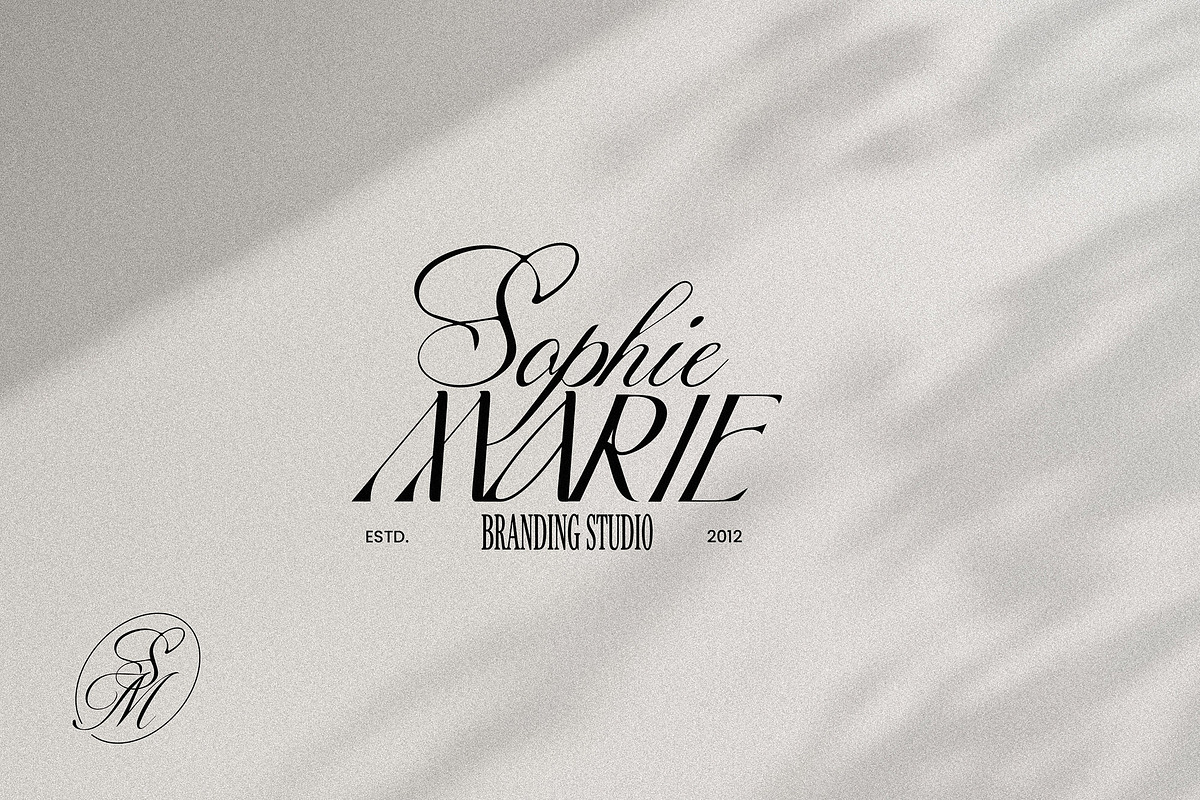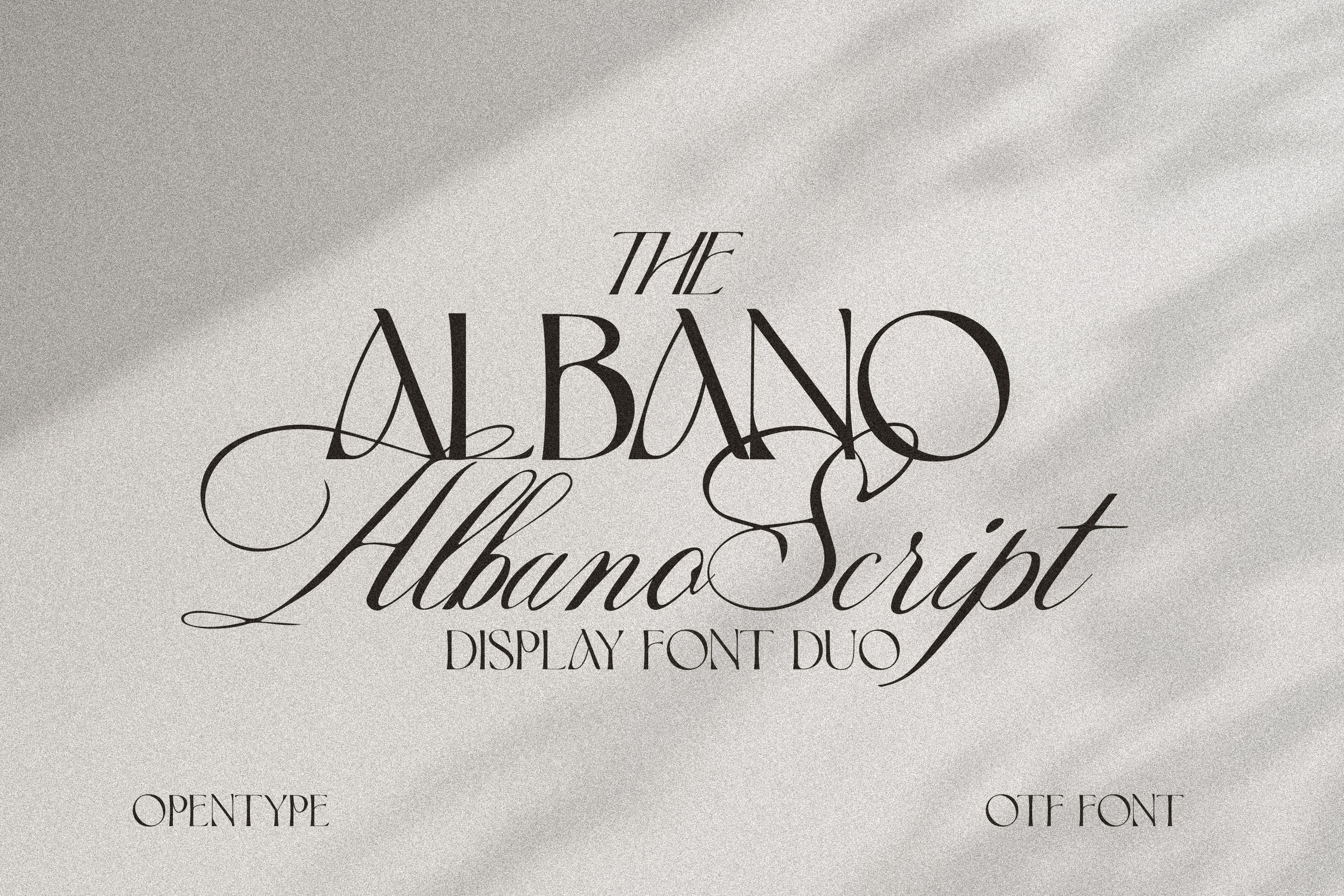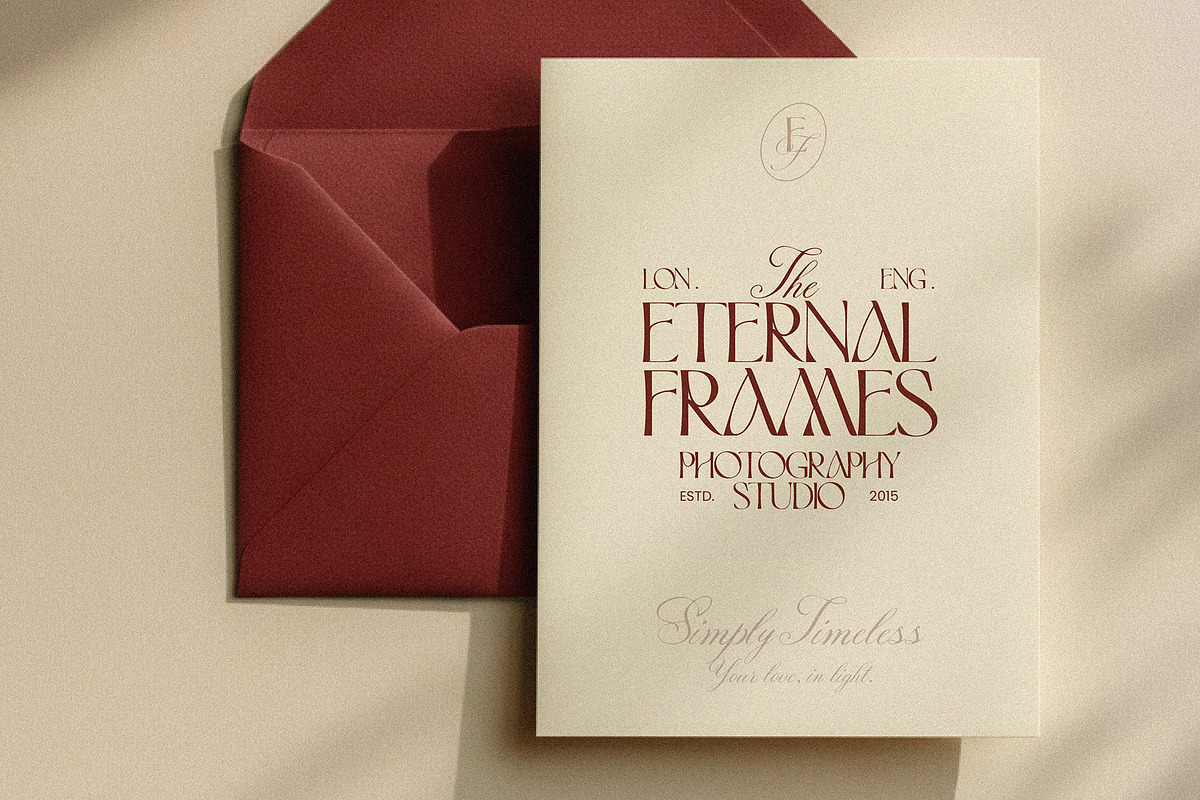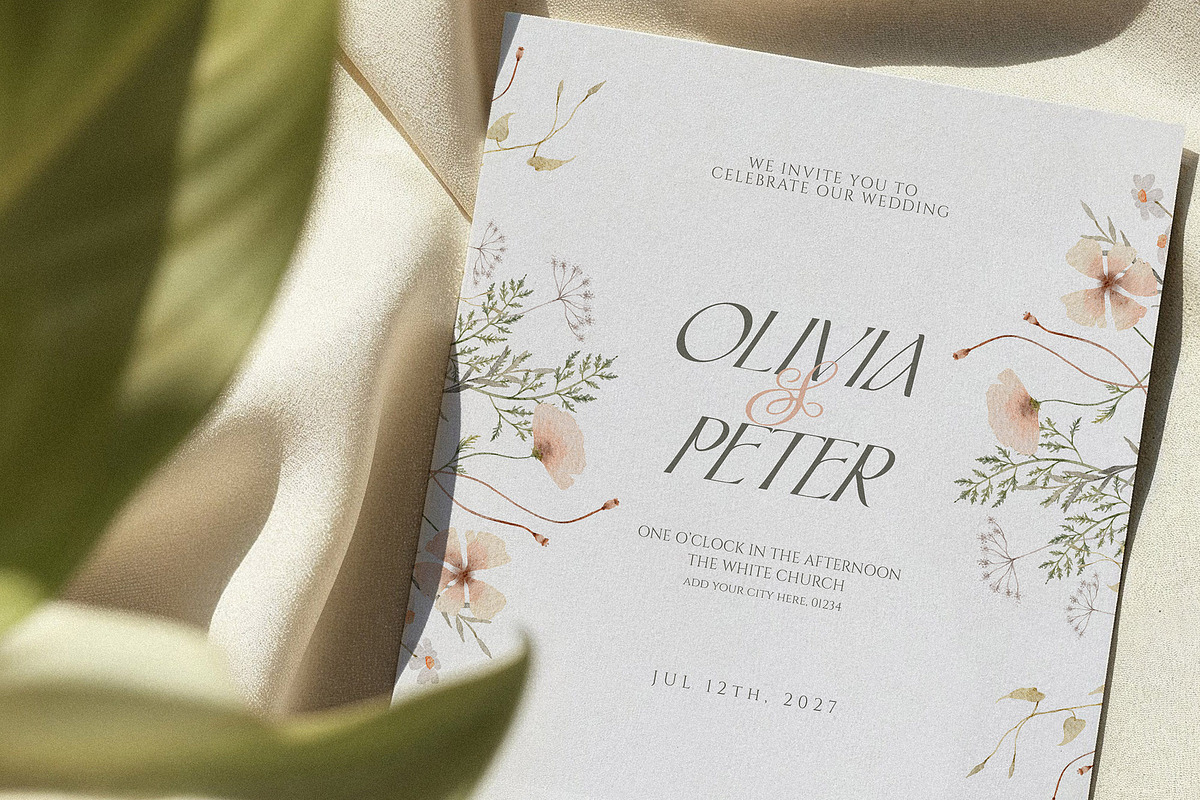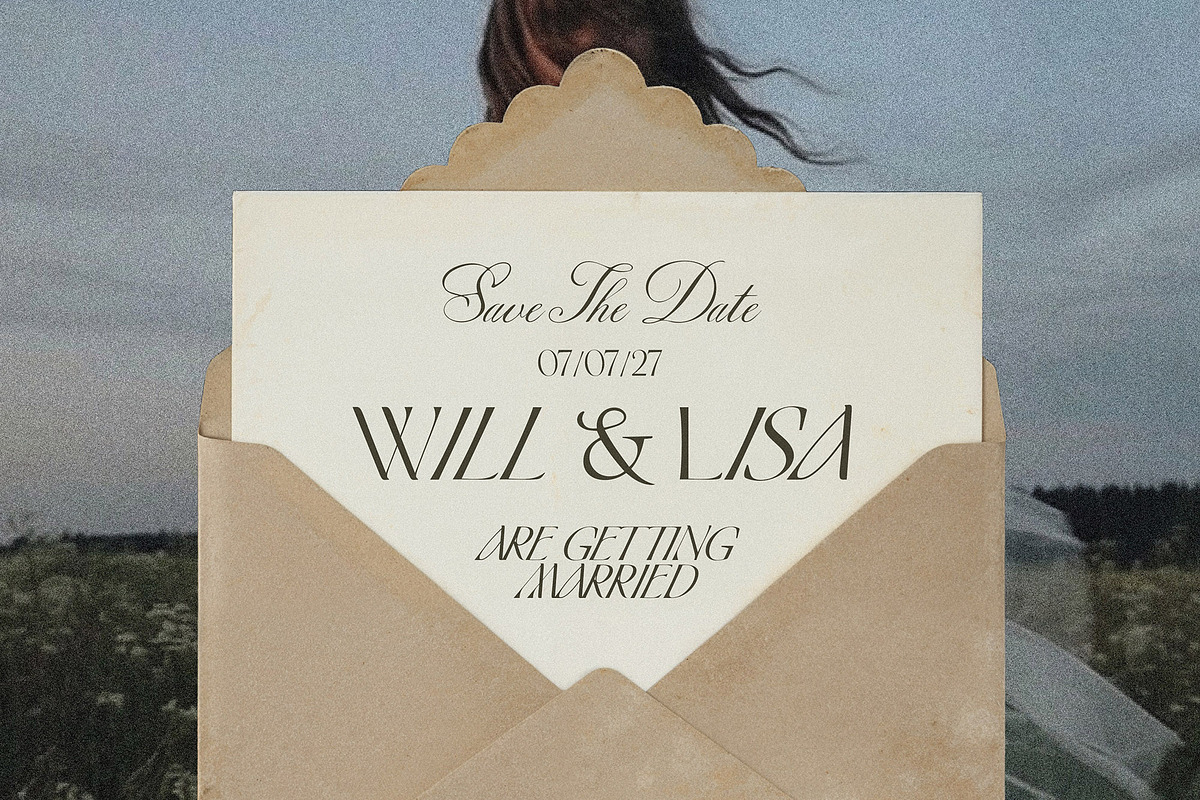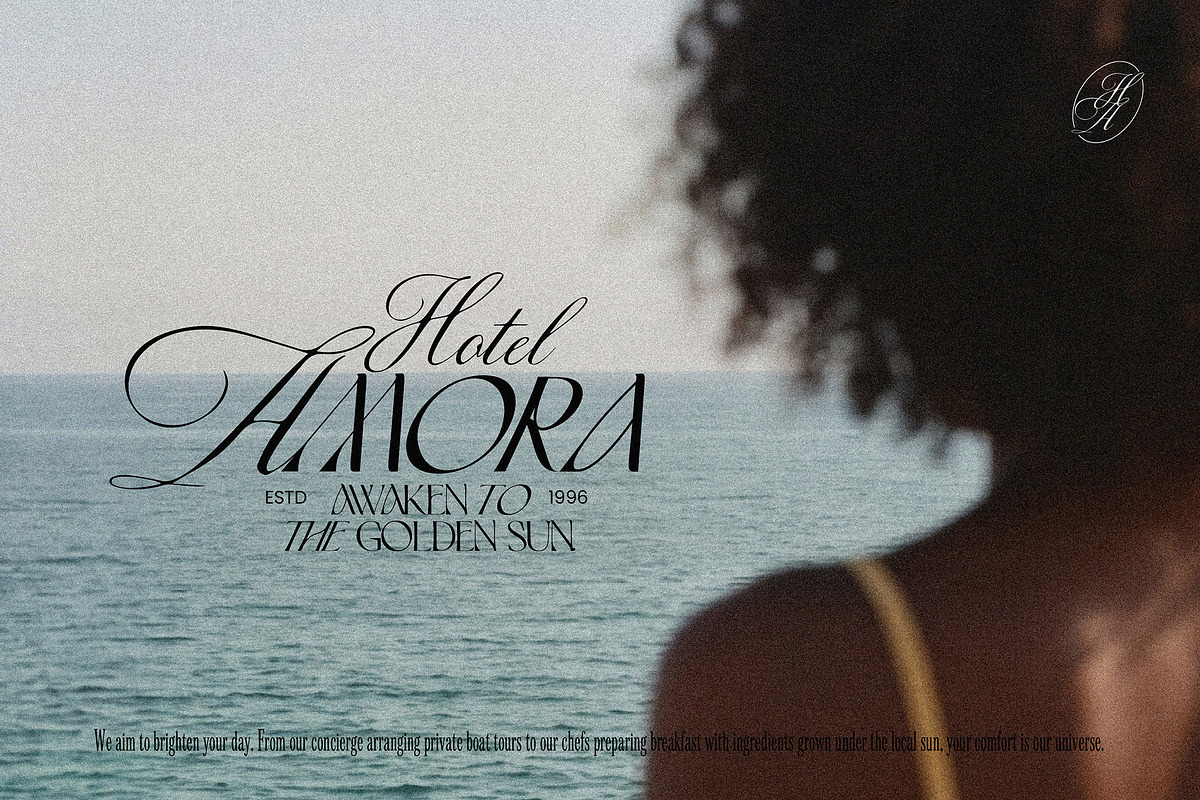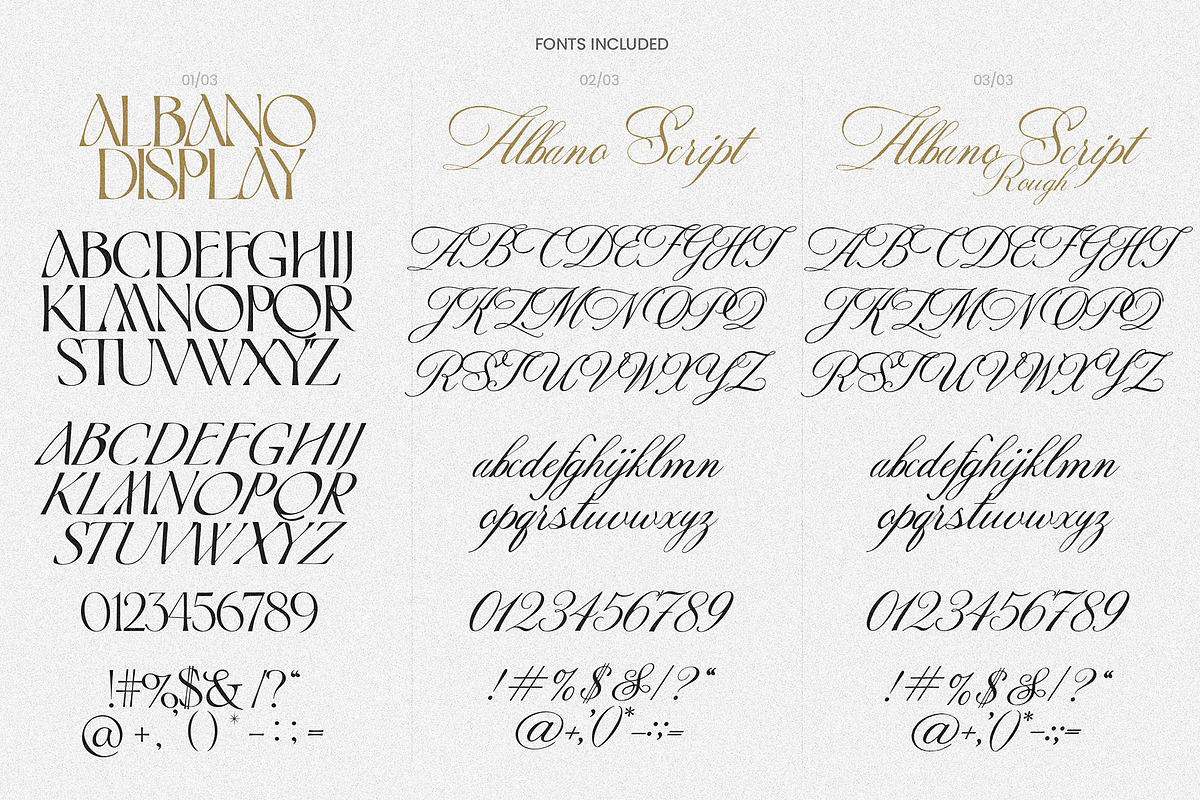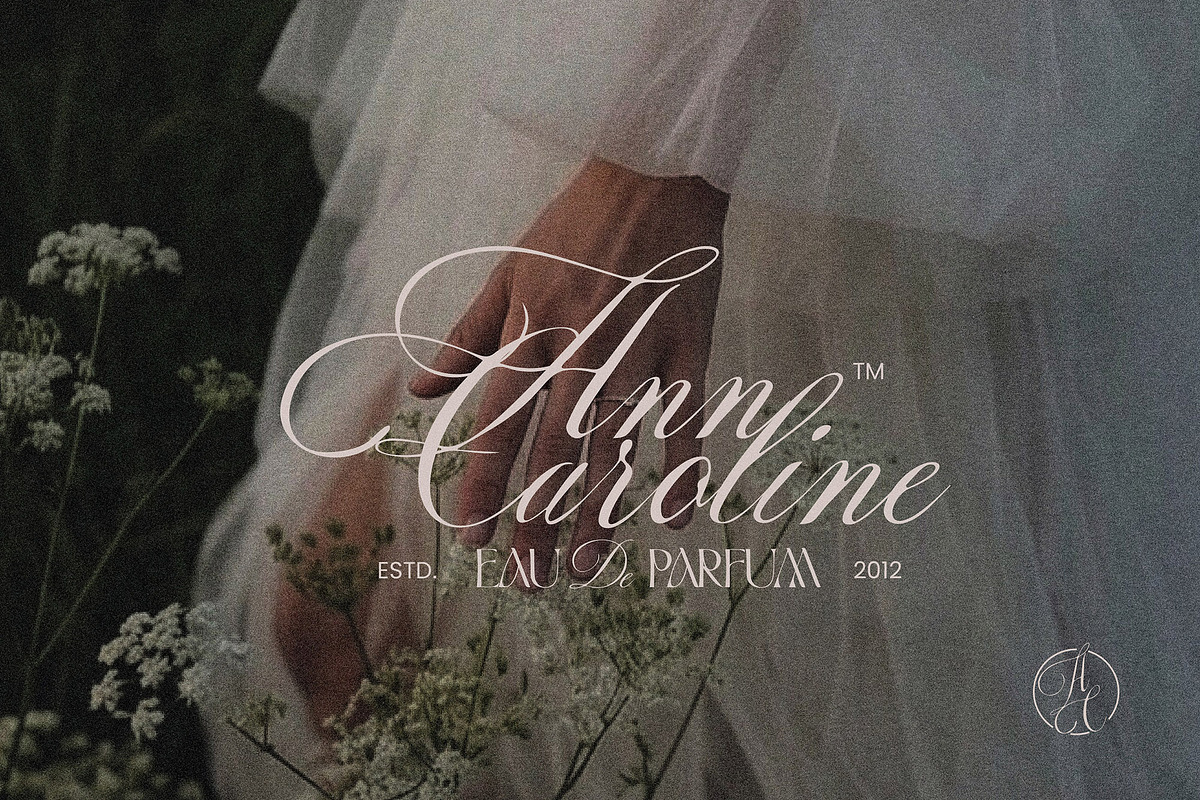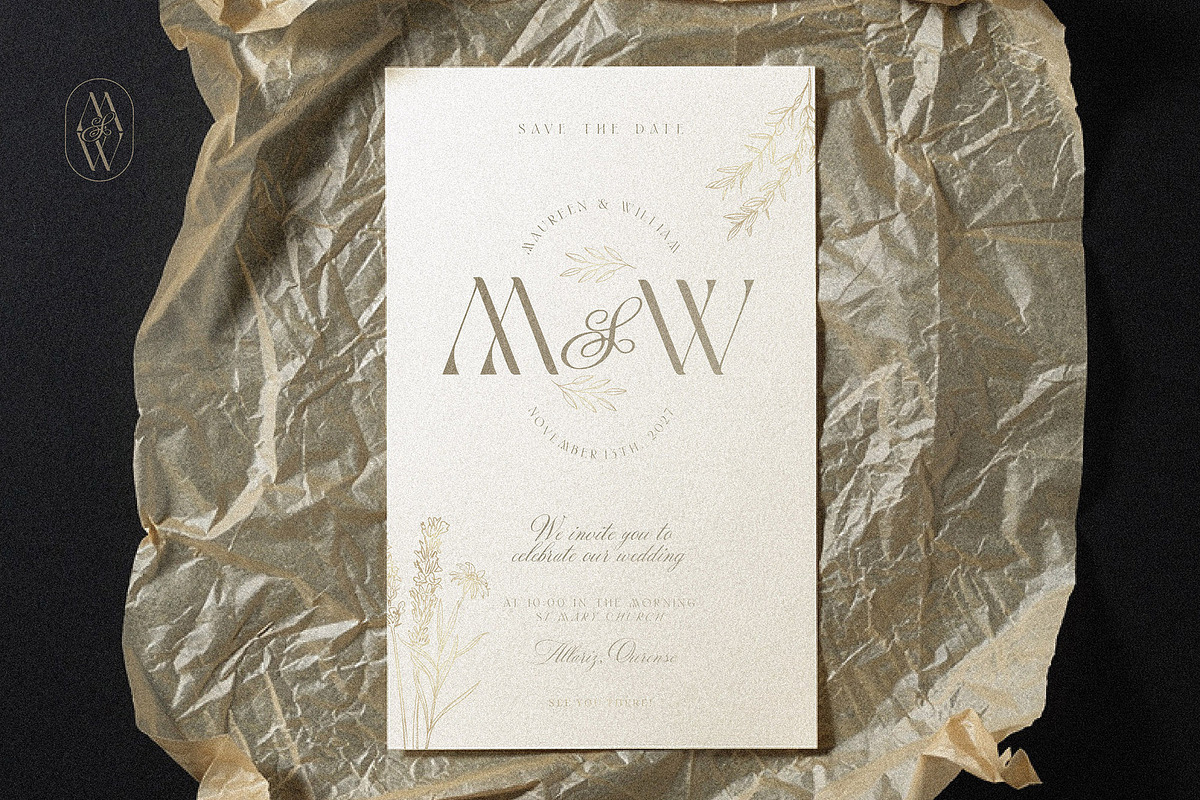
Albano - Luxury Branding Font Duo
Albano is a sophisticated pairing of a high-contrast serif and a flowing, romantic script. Designed to work in perfect harmony, this duo brings a touch of timeless luxury and modern elegance to any project.
The Albano Serif is a display font featuring sharp, high-contrast strokes and unique, decorative shapes that command attention. It feels both vintage and fiercely modern, perfect for headlines and logos that need to stand out.
The Albano Script is its perfect companion—a graceful, hand-written calligraphy style with sweeping swashes and delicate curves. It adds a layer of softness and personalization, making the pair ideal for high-end branding.
Whether you are designing a luxury logo, a wedding suite, or an editorial magazine spread, The Albano Font Duo provides the versatility and class you need to make a lasting impression.
This Font Is Perfect For:
- Luxury Branding & Logos: Perfect for fashion labels, jewelry brands, or high-end interior design firms looking for a sophisticated visual identity.
- Wedding Stationery: Create breathtaking invitations, save-the-dates, place cards, and welcome signage that feels romantic and expensive.
- Editorial Design: Use the serif for striking magazine headlines and the script for pull quotes or bylines in fashion and lifestyle publications.
- Packaging Design: ideal for cosmetic packaging, perfume bottles, or boutique wine labels where elegance is key.
- Social Media Graphics: Create Pinterest-worthy quotes, Instagram stories, and mood boards that stand out in the feed.
- Book Covers: specifically for romance novels, historical fiction, or high-end coffee table books.
- Restaurant Menus: Design upscale menus for fine dining establishments or chic cafes.